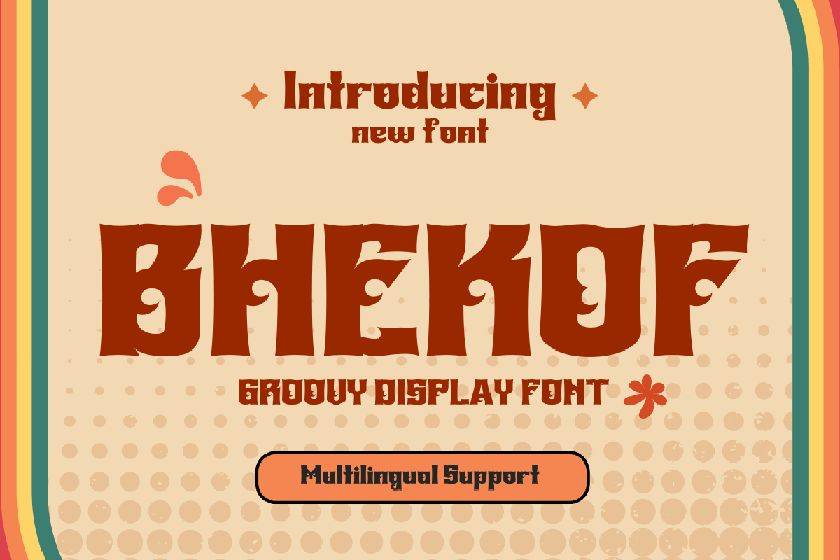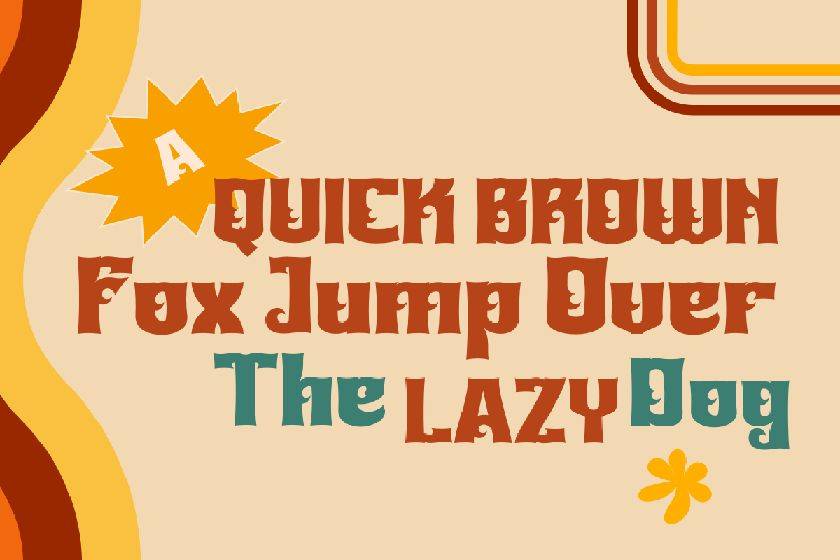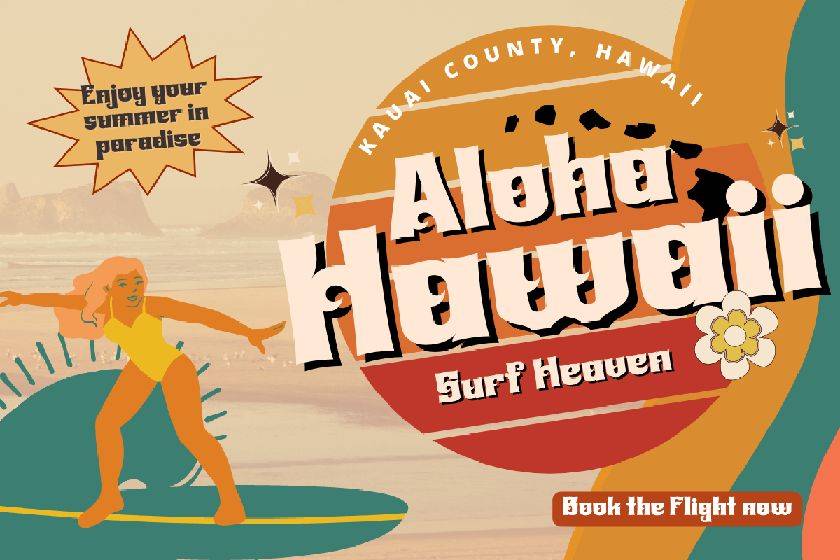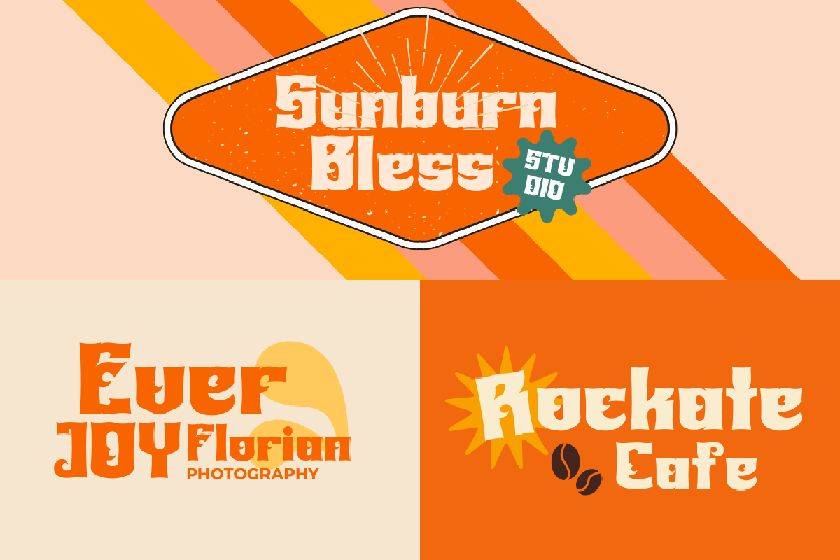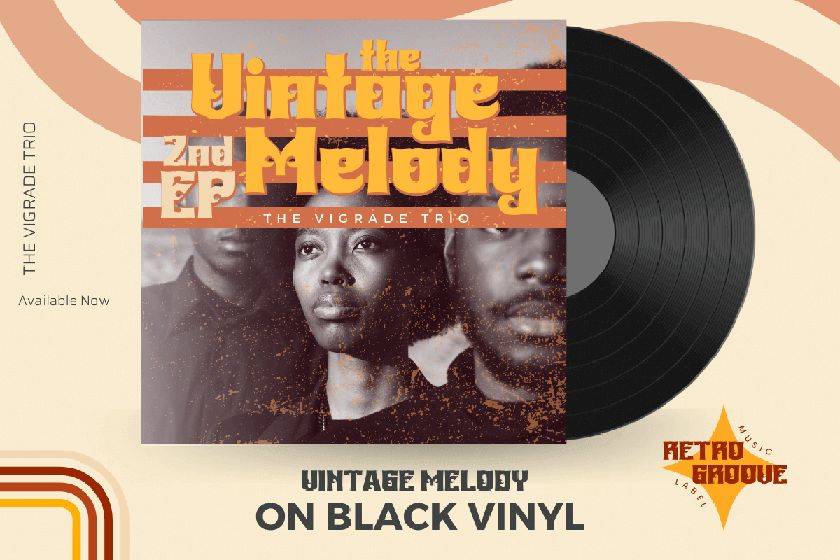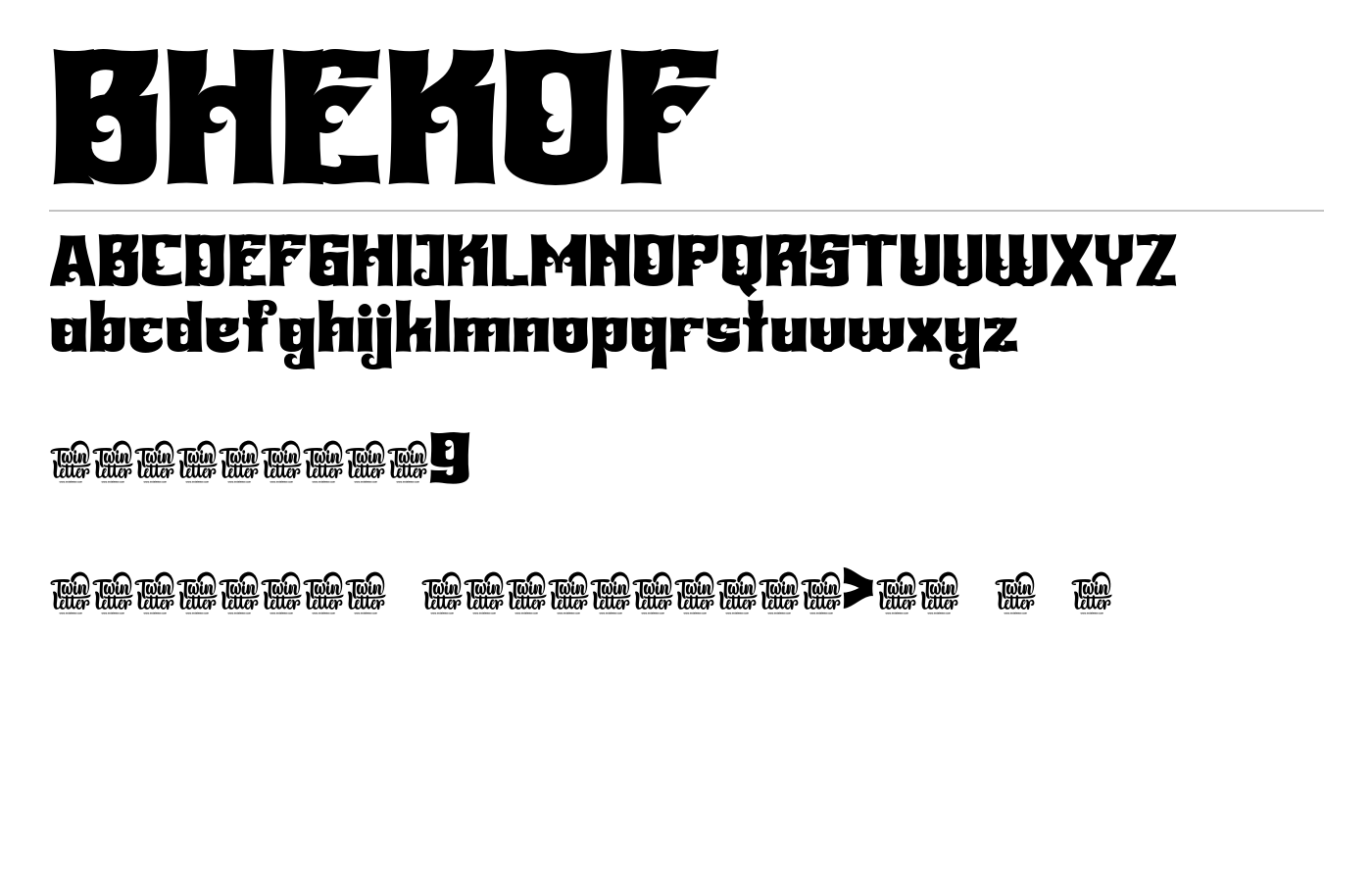
Bhekof is a bold, decorative serif font with a strong, vintage vibe, featuring thick strokes and playful, sharp serifs that give it character and flair. Its unique letterforms, including single-story a and g, make it ideal for eye-catching headlines, posters, and branding projects that want to convey a sense of creativity and boldness. This font works best where a fun yet commanding presence is needed, such as in logo design or editorial displays.
Bhekof Font